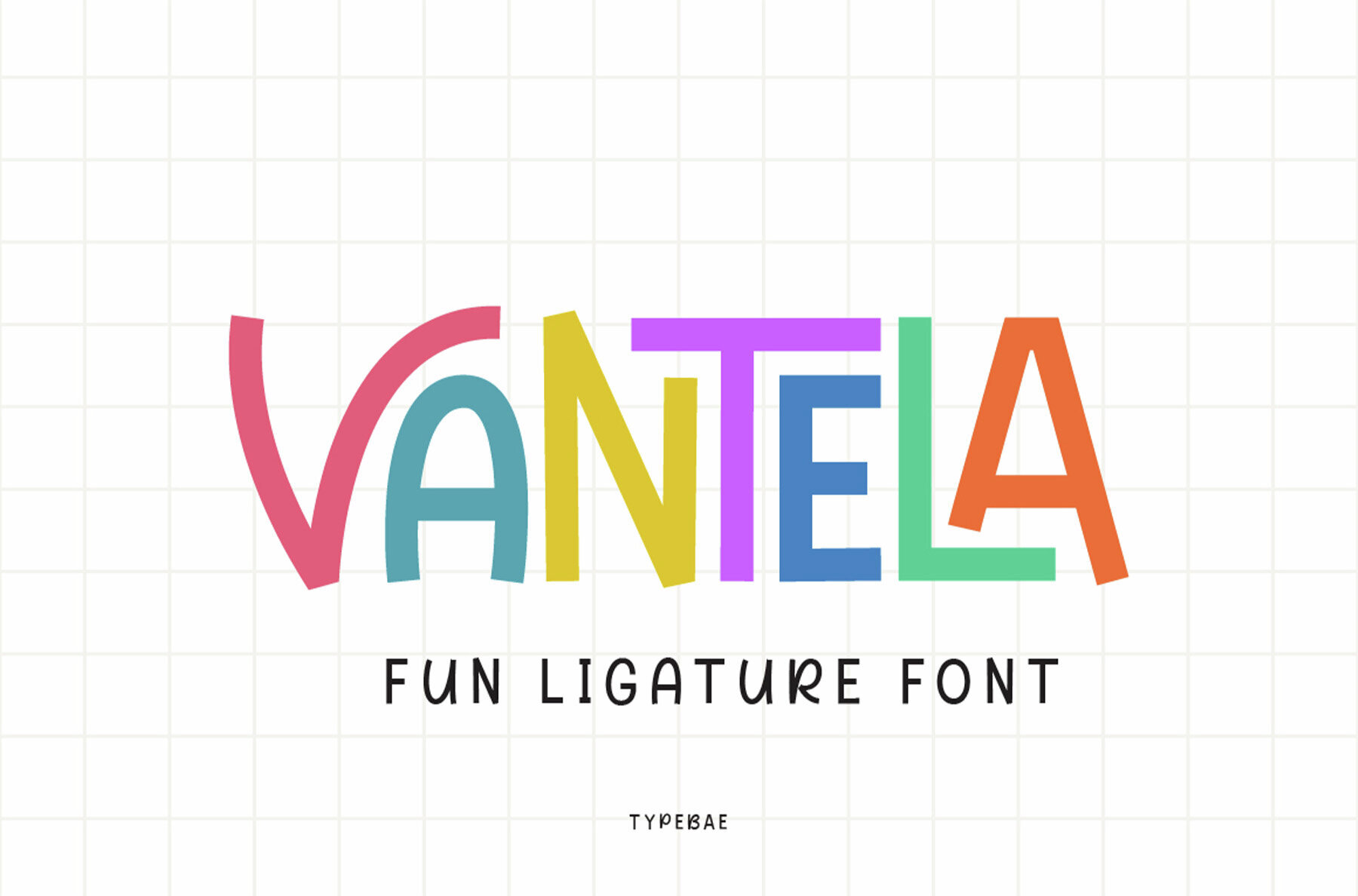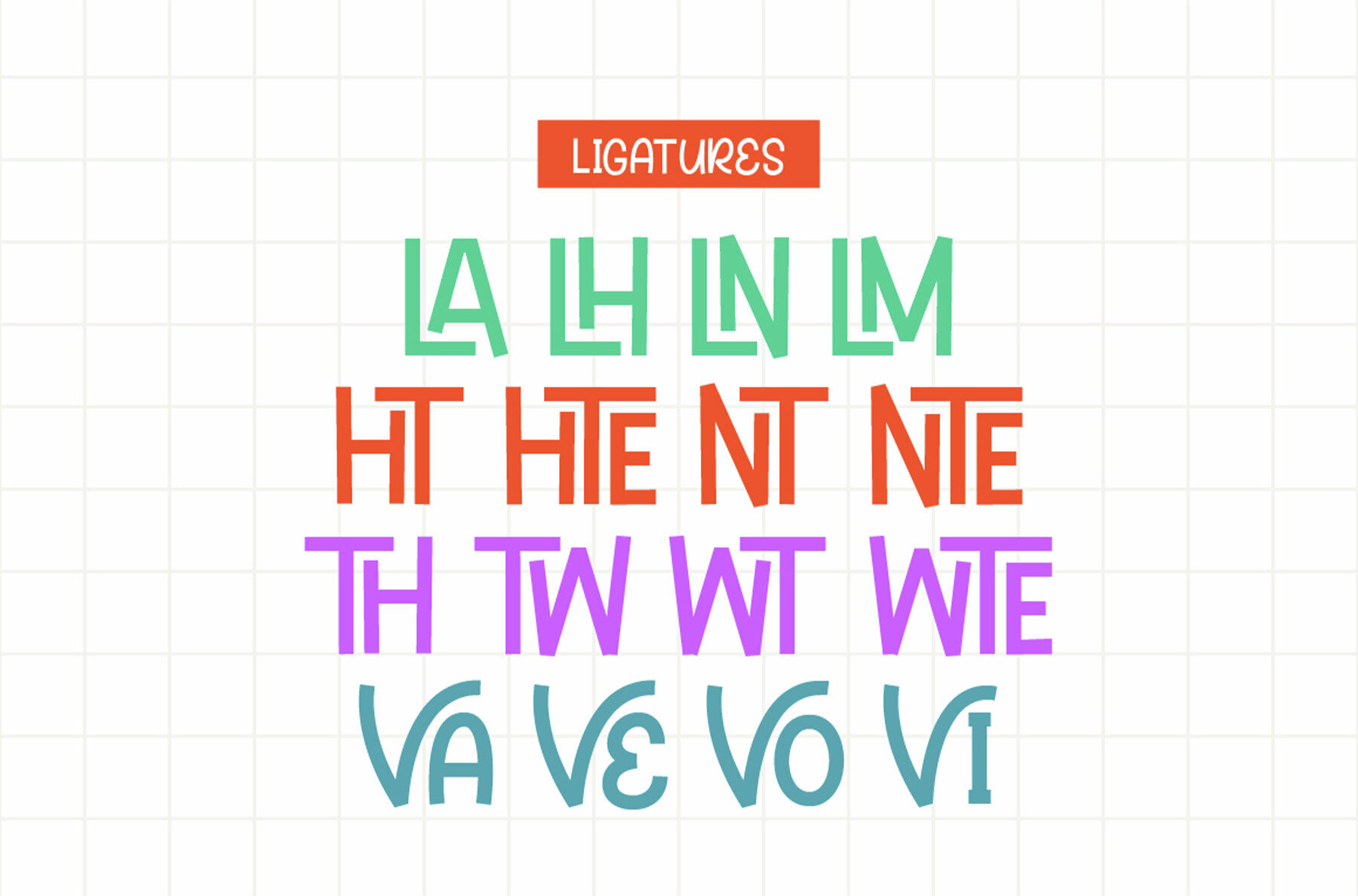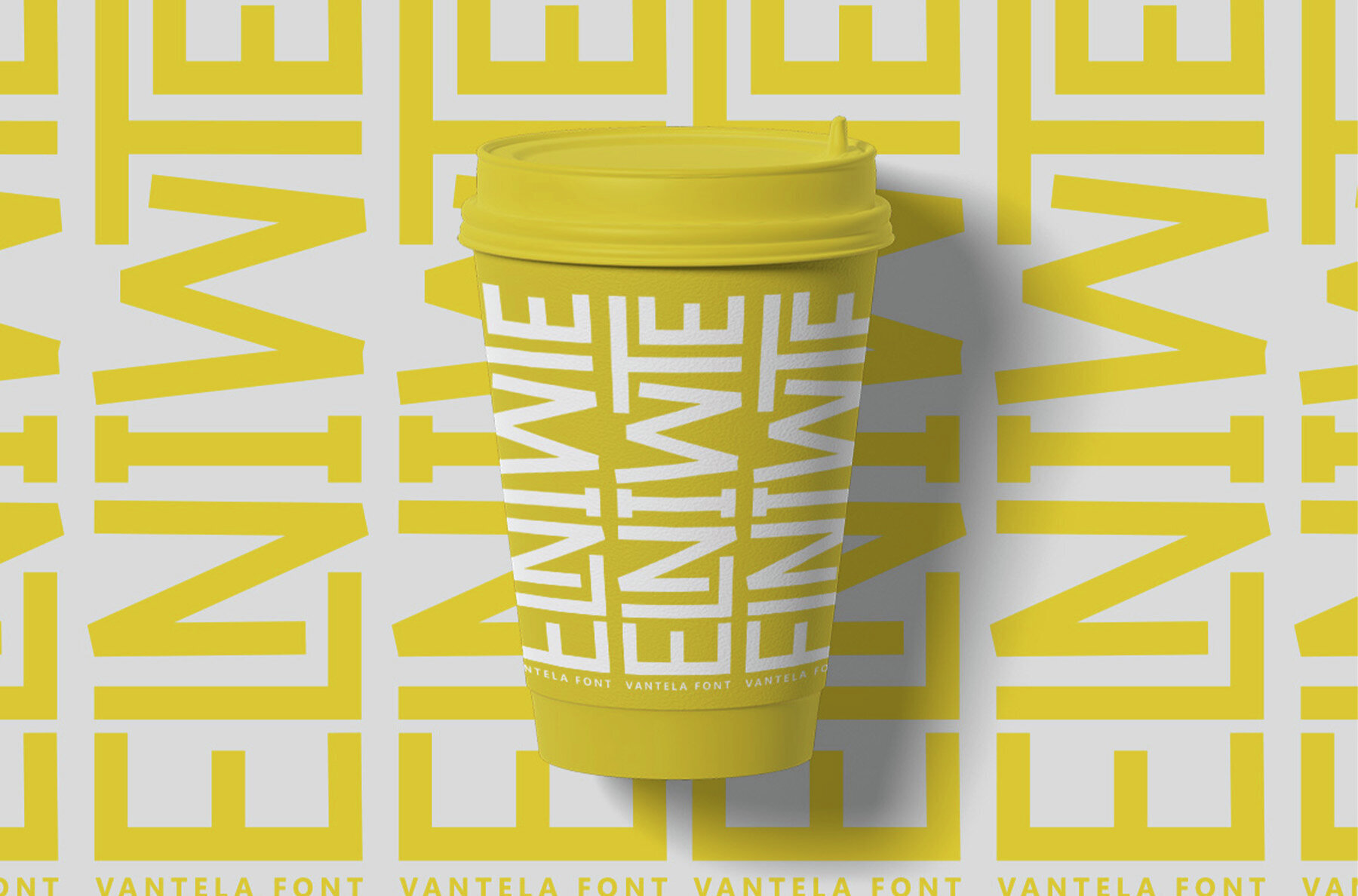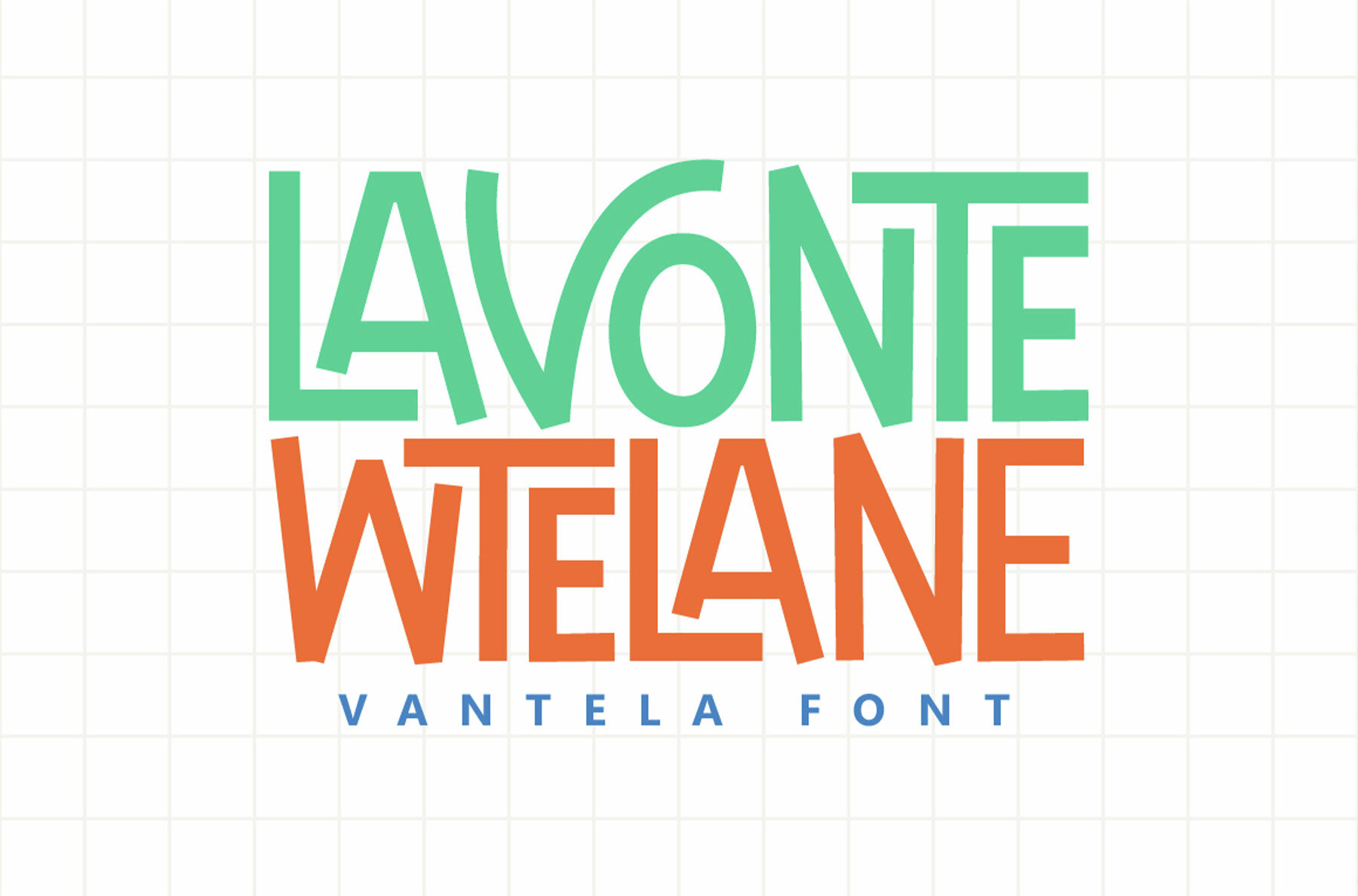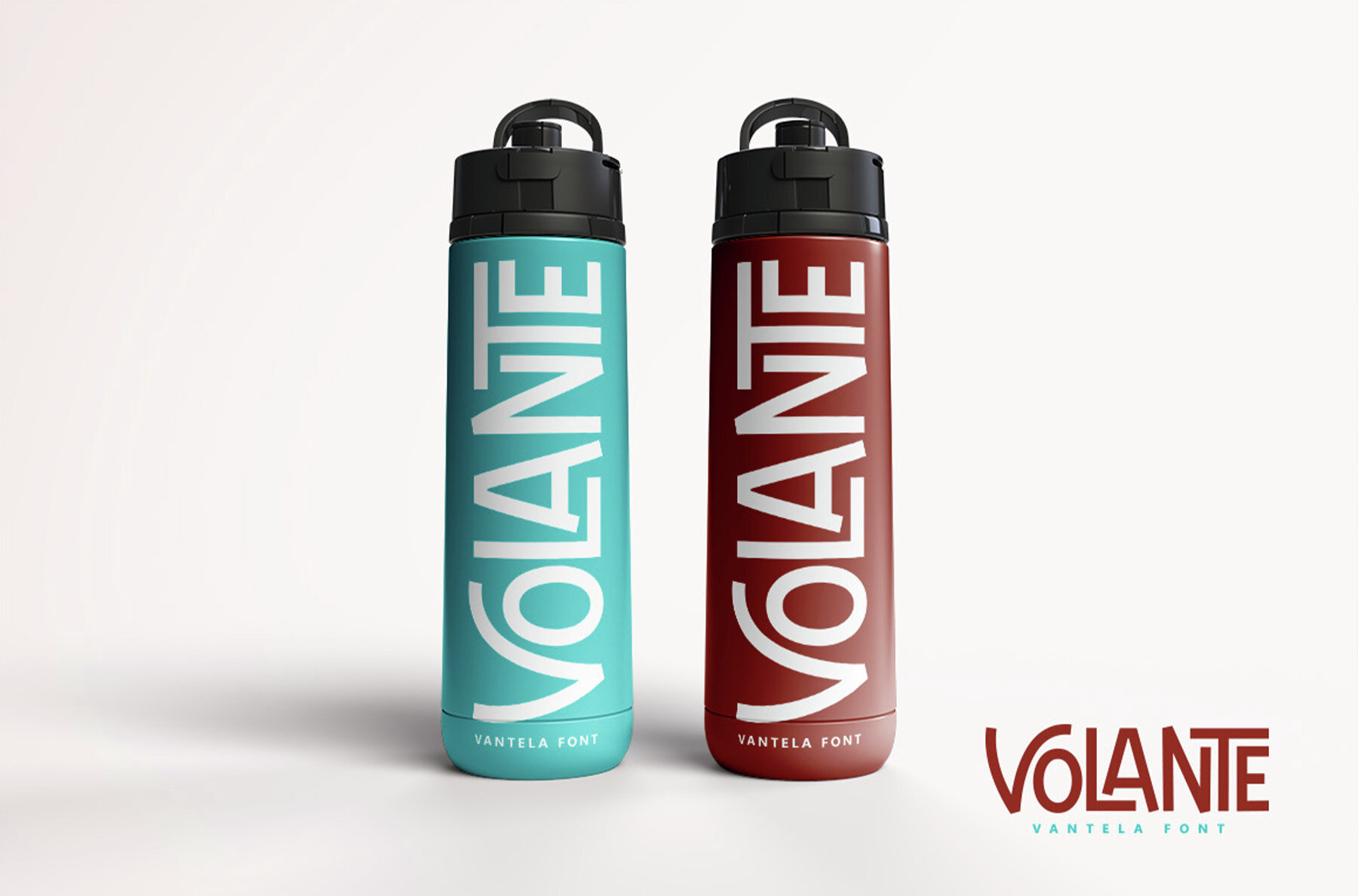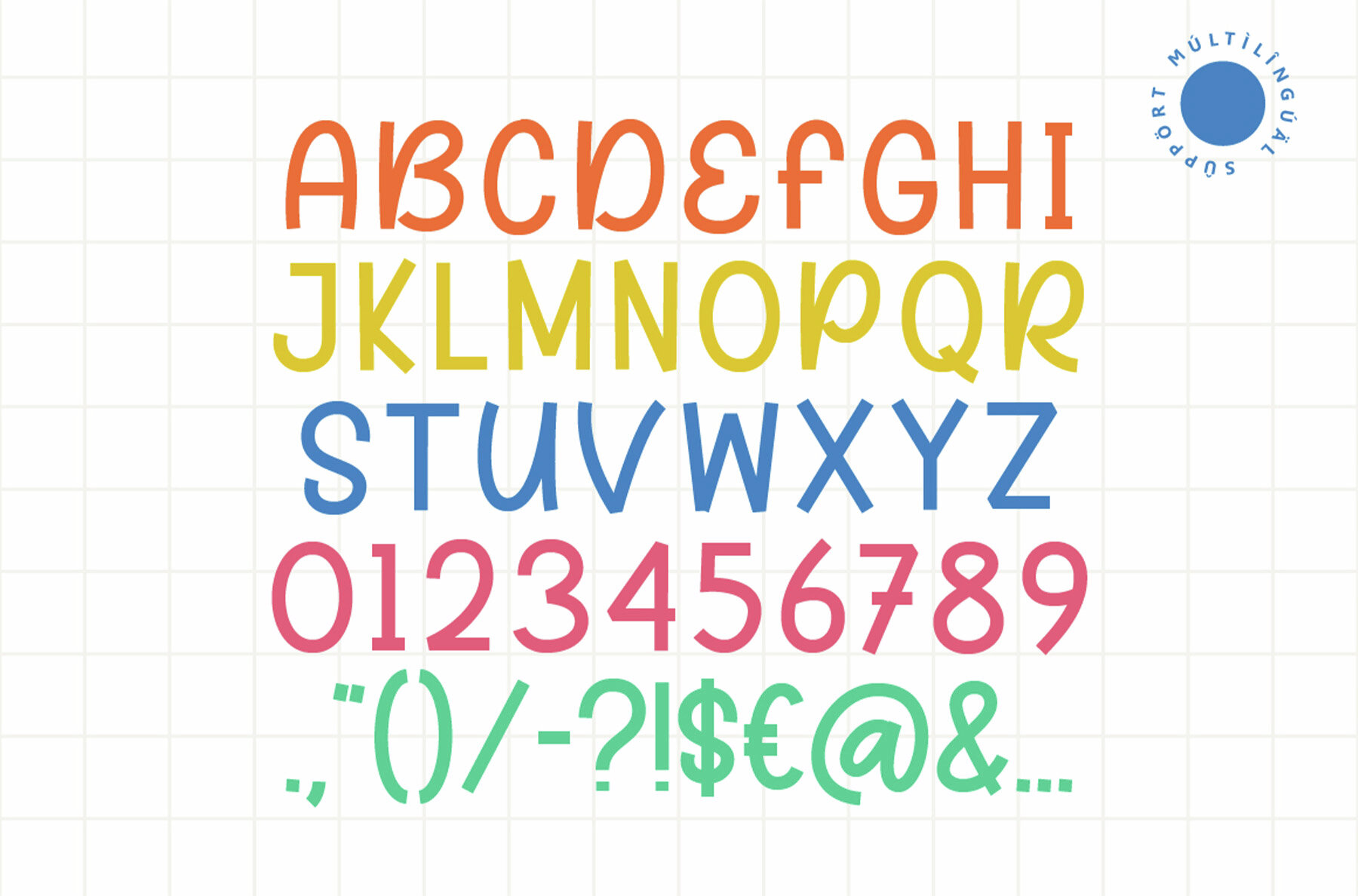
Vantela Font
Vantela
Vantela is a unique display font designed to bring a lively and fun character to your creative work. With its playful ligatures, every letter pairs smoothly to deliver engaging visual harmony. Vantela stands out in cartoon-inspired graphics, children's games, and any project that benefits from a lighthearted, charming touch. Its versatility allows it to adapt to a variety of design needs, making it a smart choice for design professionals seeking originality and personality.Vantela Display Font: Playful Typography for Creative Projects